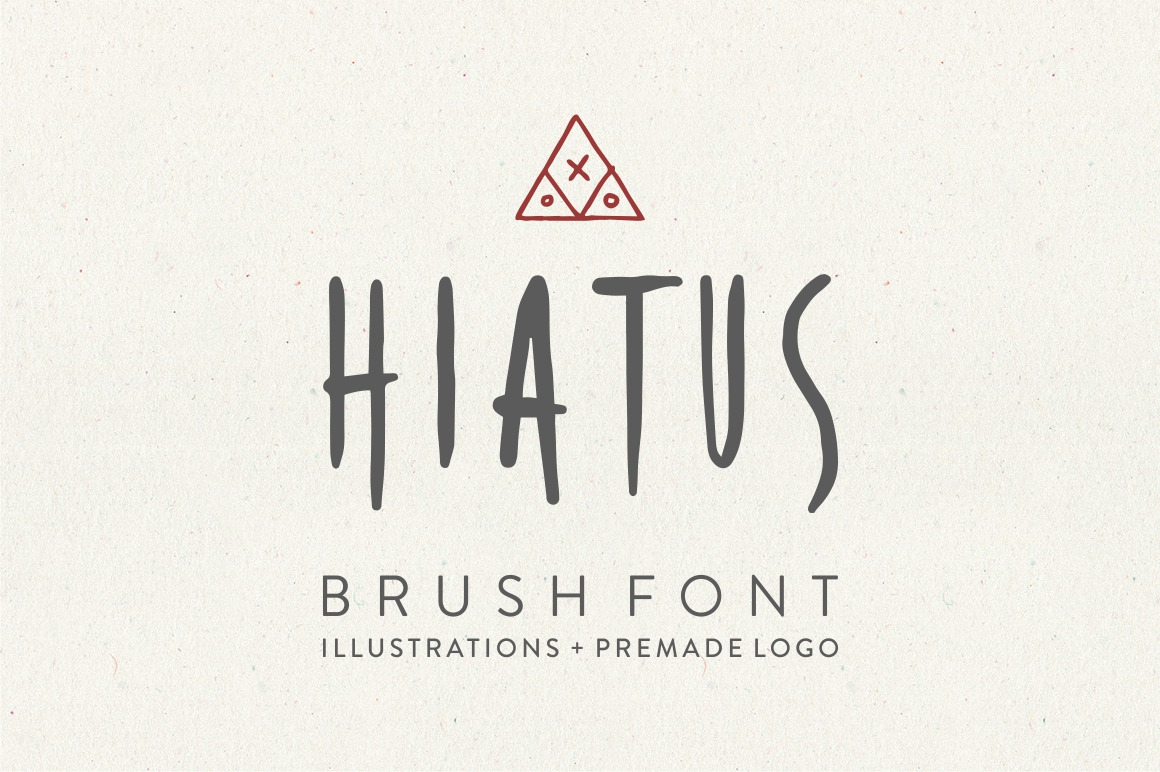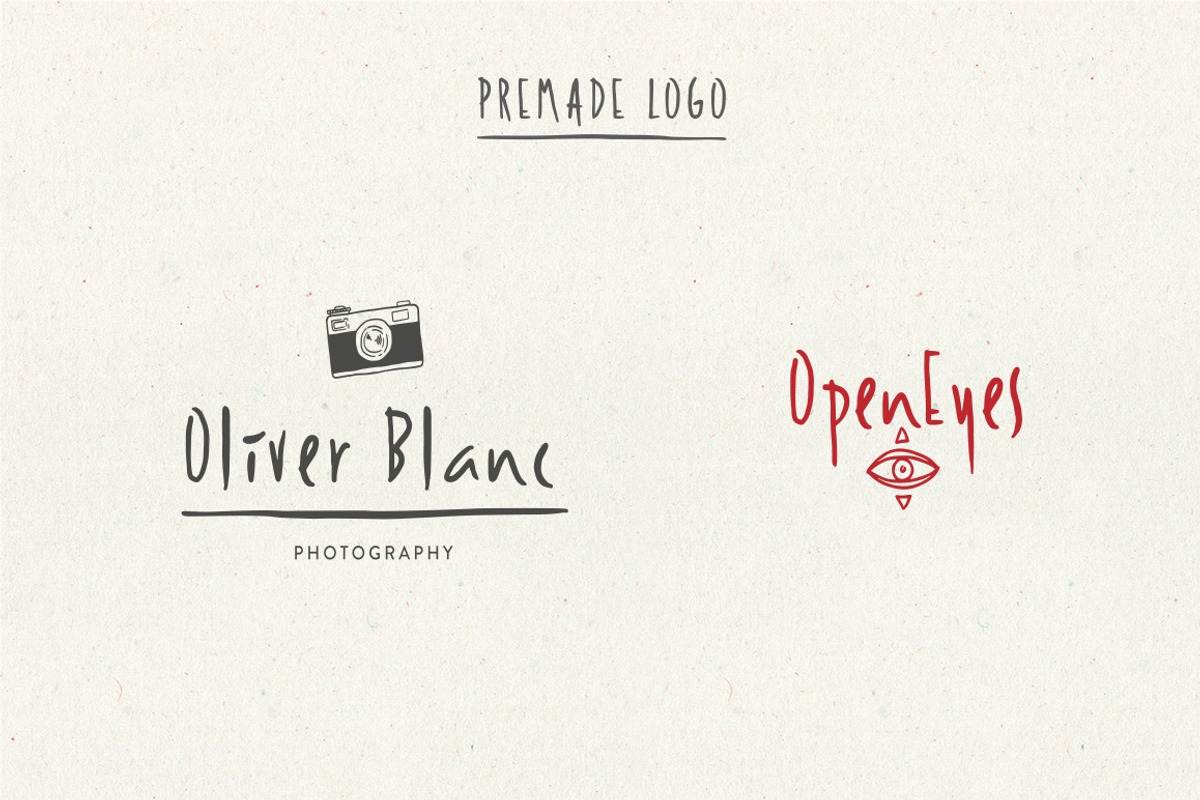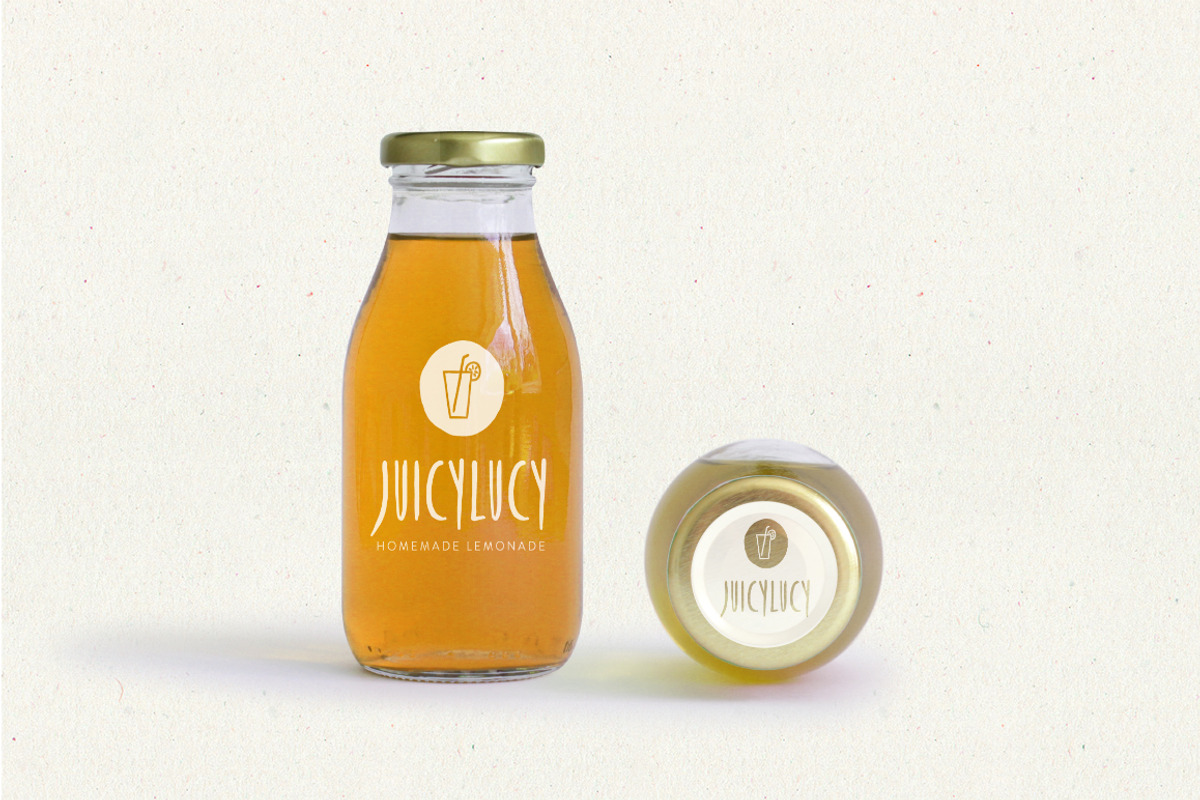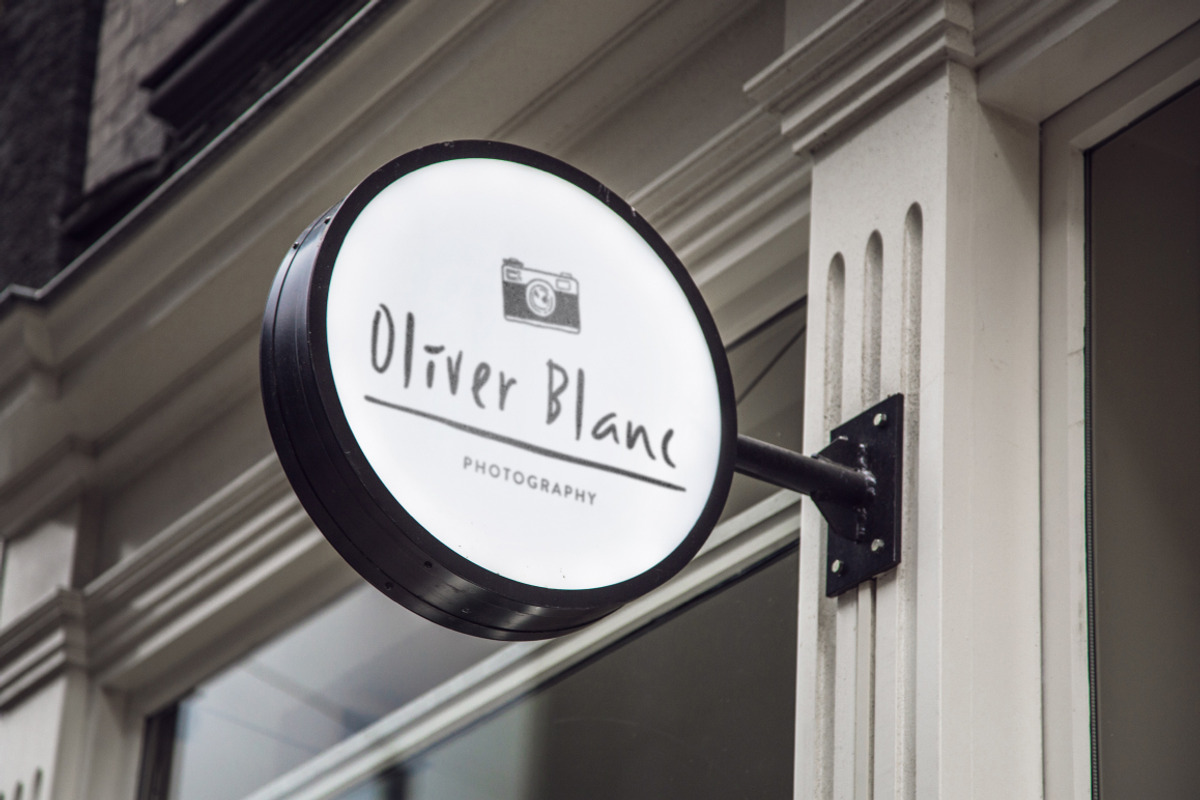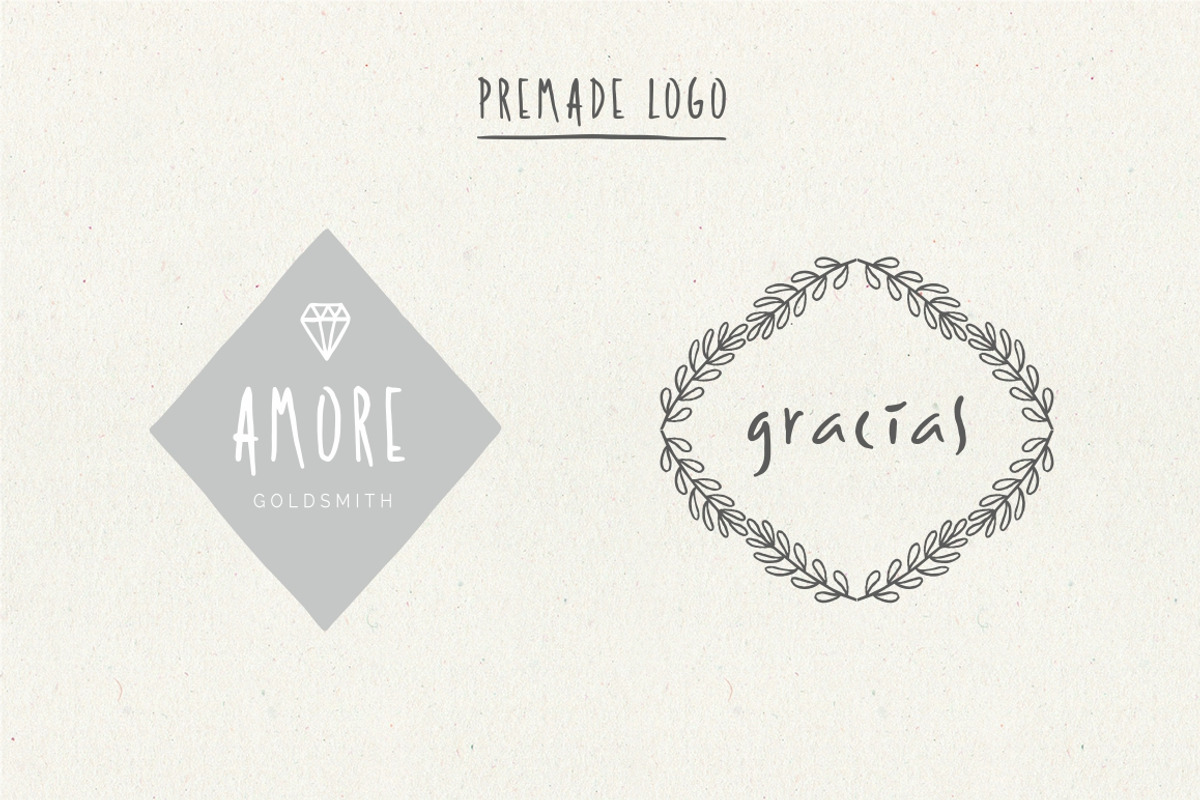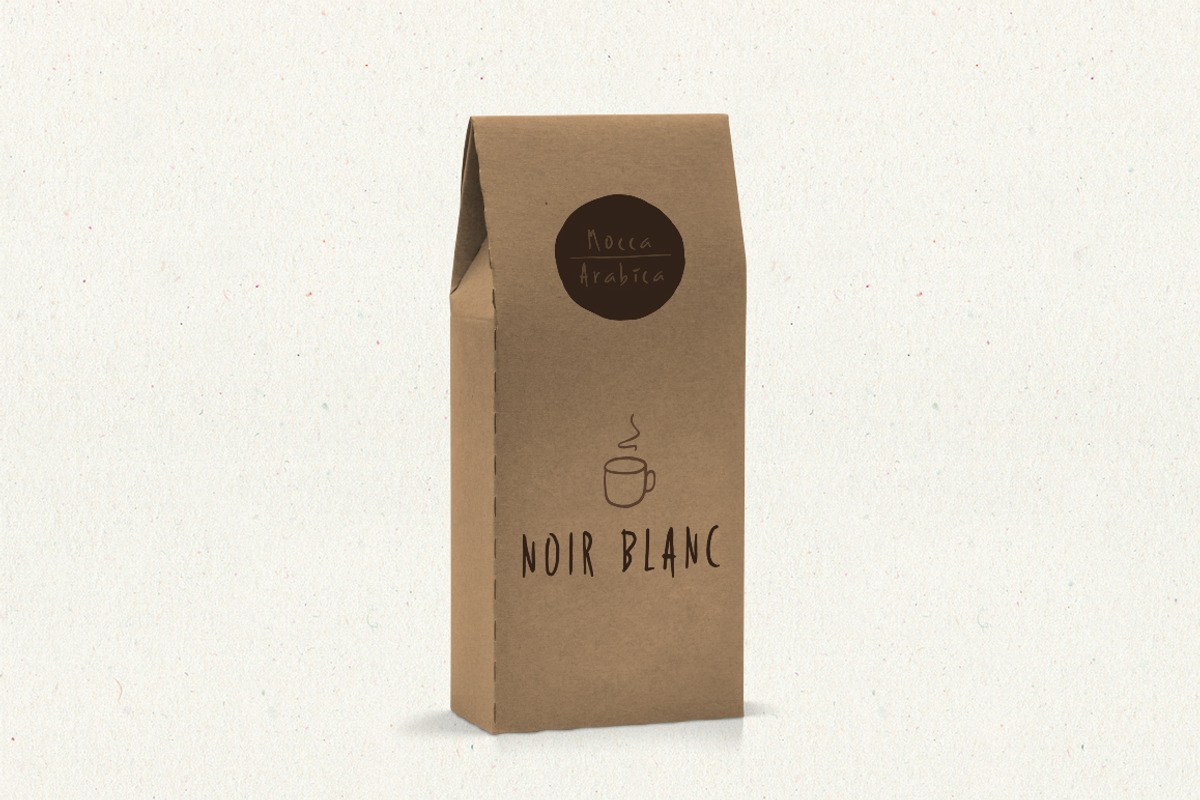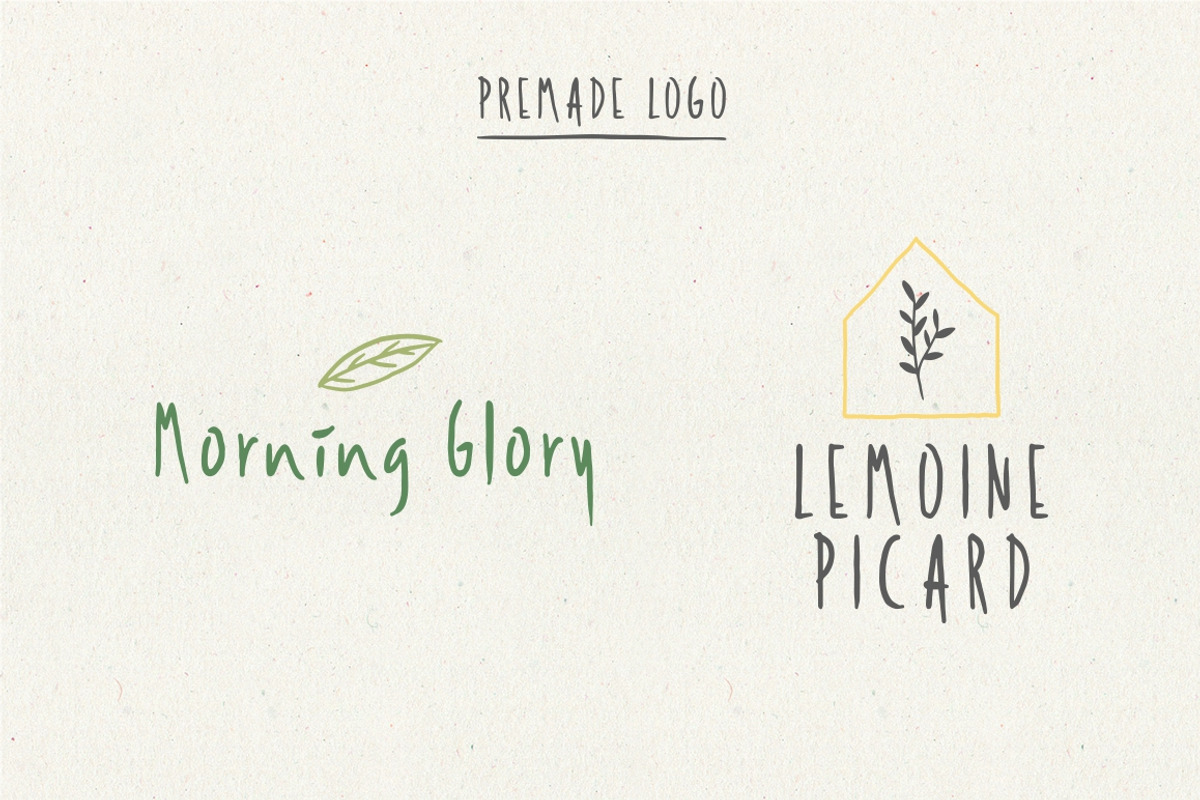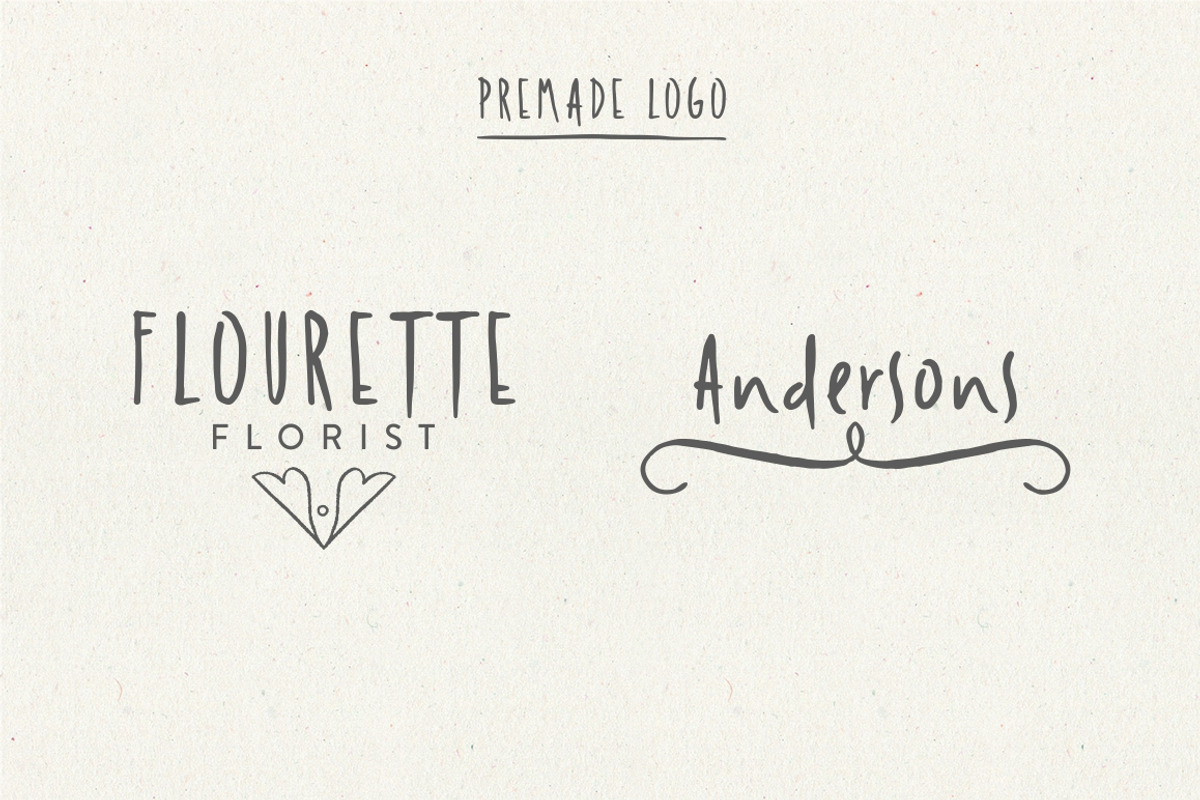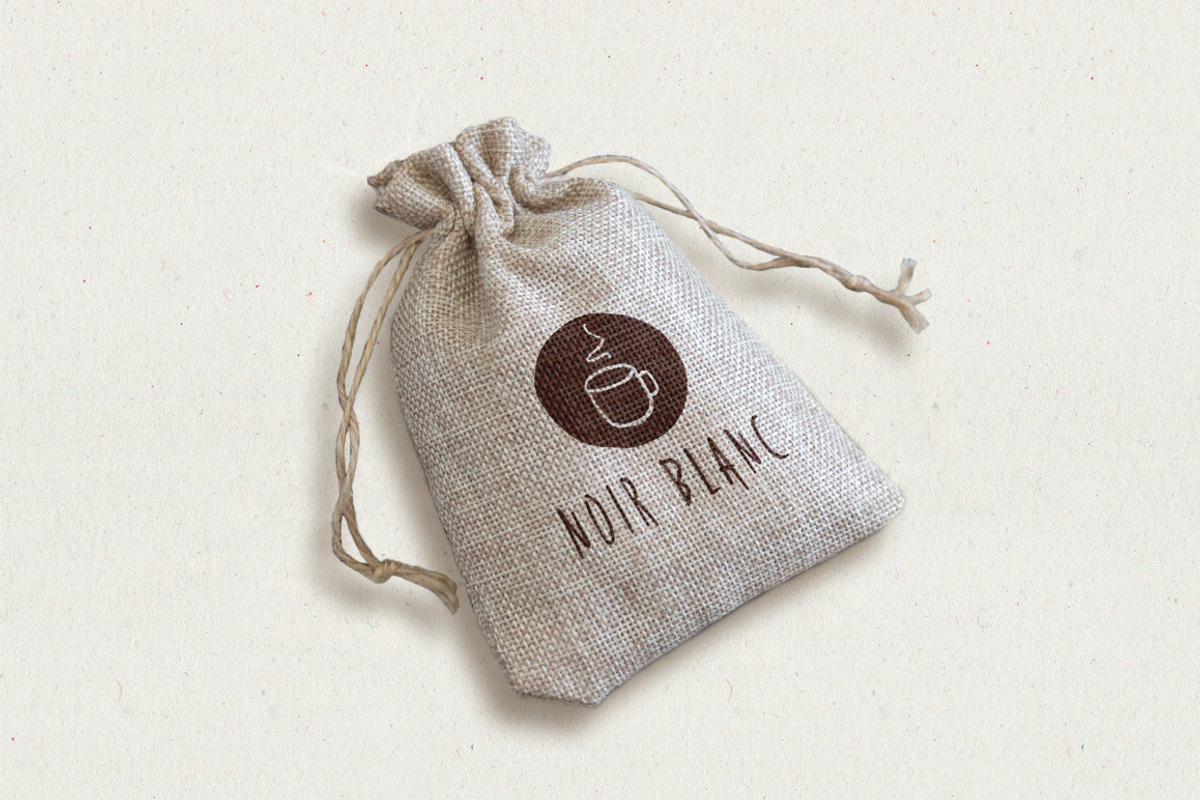
Hiatus Brush Font & Illustrations
Hiatus is one of the font that I really enjoy making it. With 100 illustrations and elements, you can mix and match with the font and make so many design alternatives. I also included 20 premade logo for you to use and edit it as you like. Suitable for food, craft, wedding, photography logo & stationery.
Hiatus comes with lowercase, uppercase, numerals, punctuations and currencies.